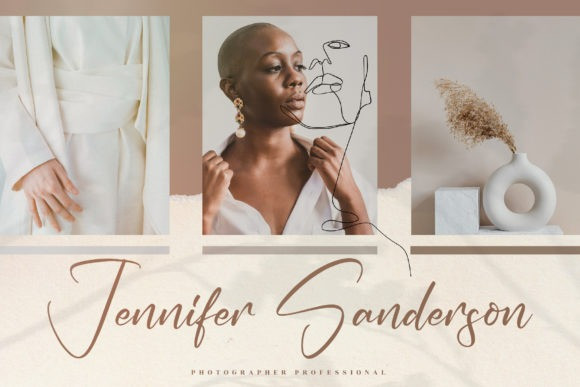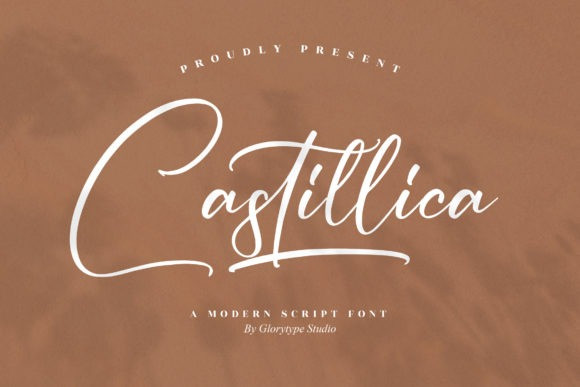
Castillica Script Font
Castillica Script Font, is a modern script font, suitable for any projects such as logos, branding projects, homeware designs, product packaging, mugs, quotes, posters, shopping bags, t-shirts, book covers, name cards, invitation cards, greeting cards, labels, photography, watermark, special events, and all your other lovely projects that need a beautiful handwritten touch.